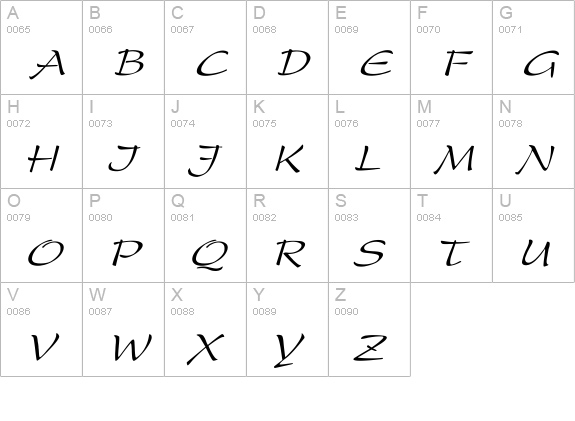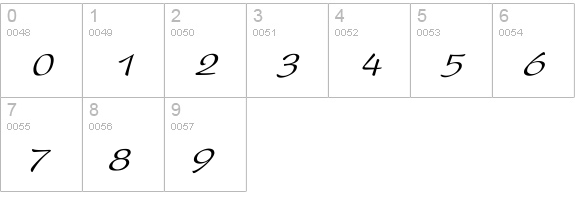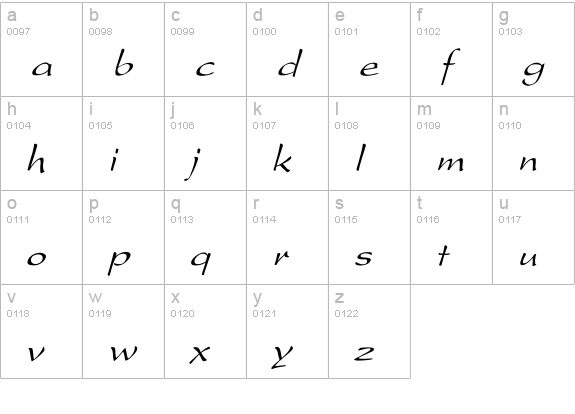
Present Italic is a distinctive, italic variant in the Present typeface family \xE2\x80\x94 well suited to design and typography projects.
Present Italic is a sleek and modern font that exudes sophistication and elegance. Its italicized design adds a touch of flair to any project, making it perfect for stylish branding, editorial design, and more. With its clean lines and contemporary aesthetic, Present Italic is sure to make a statement. Best of all, this font is available for free download at FontsMarket.com, allowing you to easily incorporate it into your designs without any cost. Elevate your projects with the timeless charm of Present Italic and watch as your designs come to life with this versatile and elegant typeface.